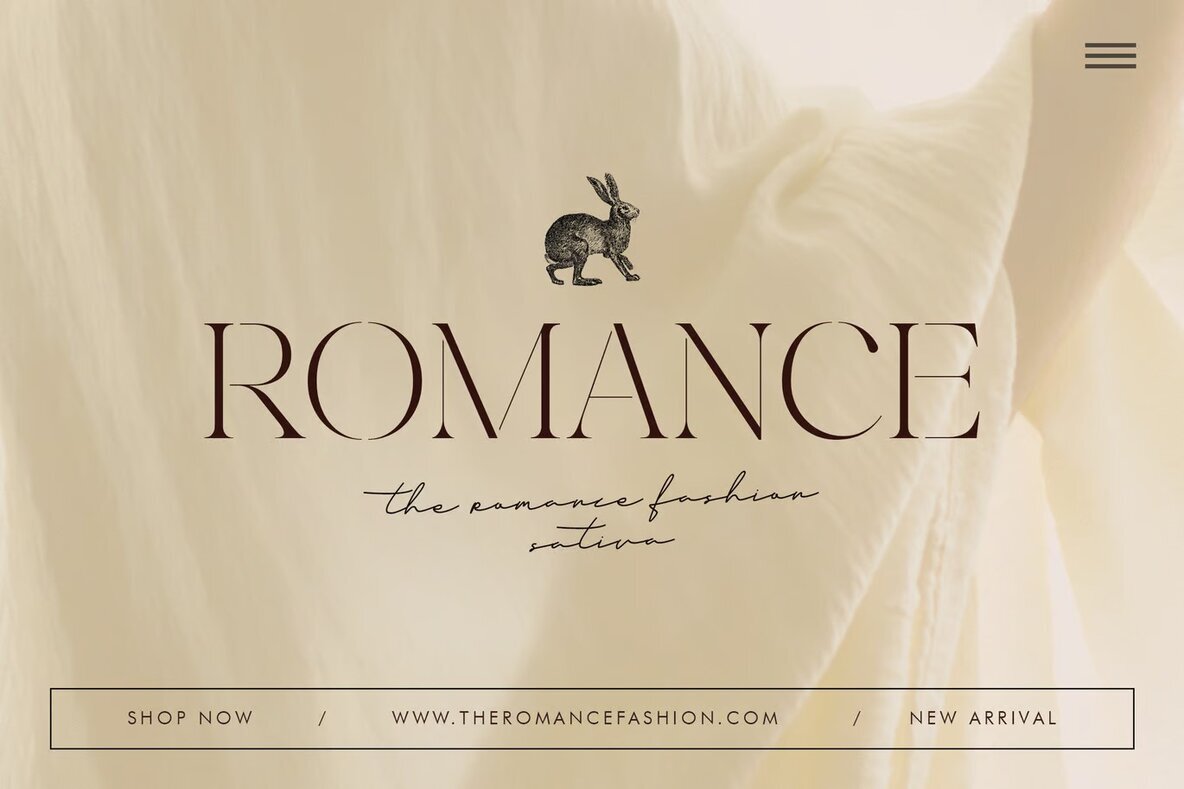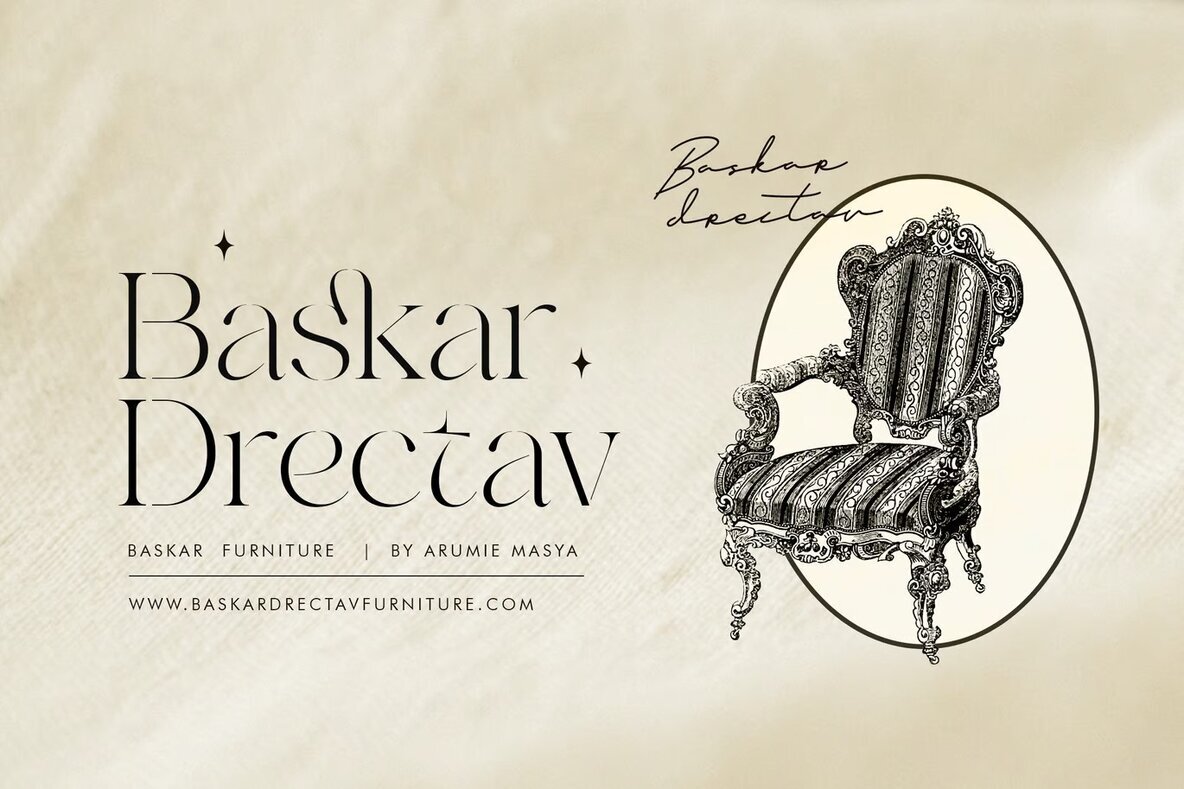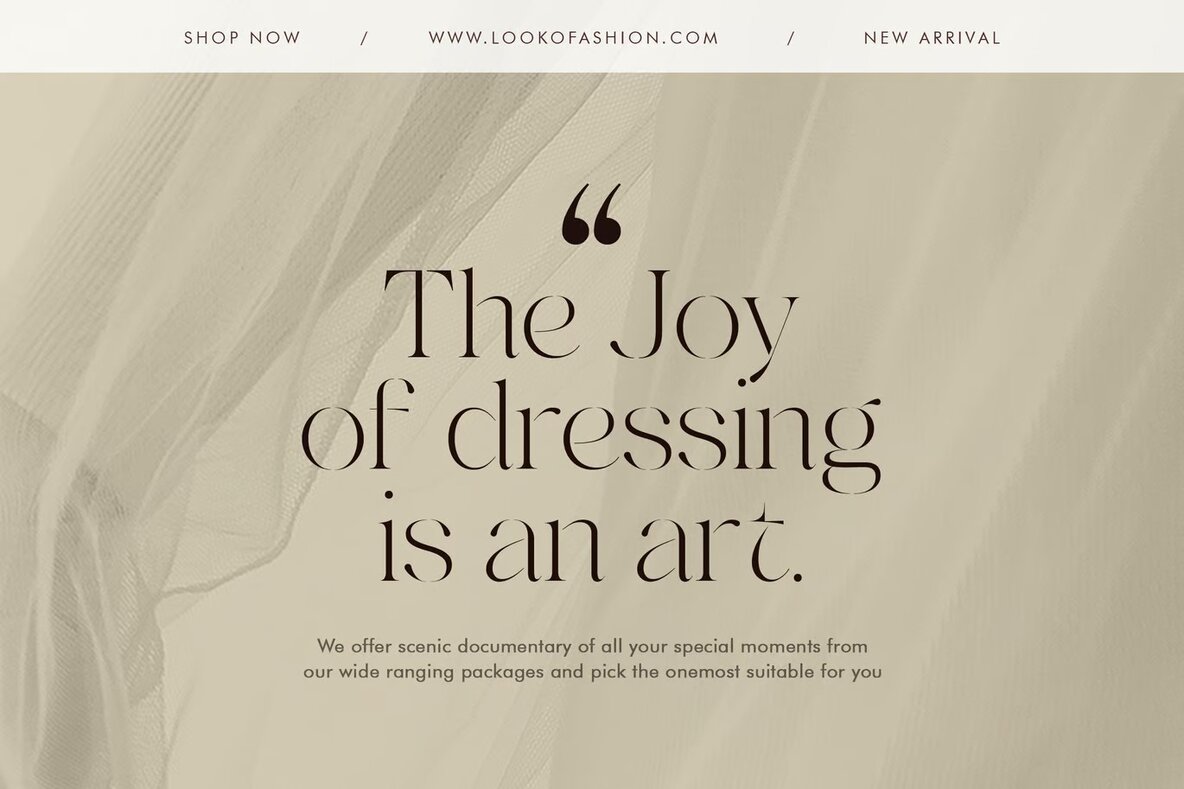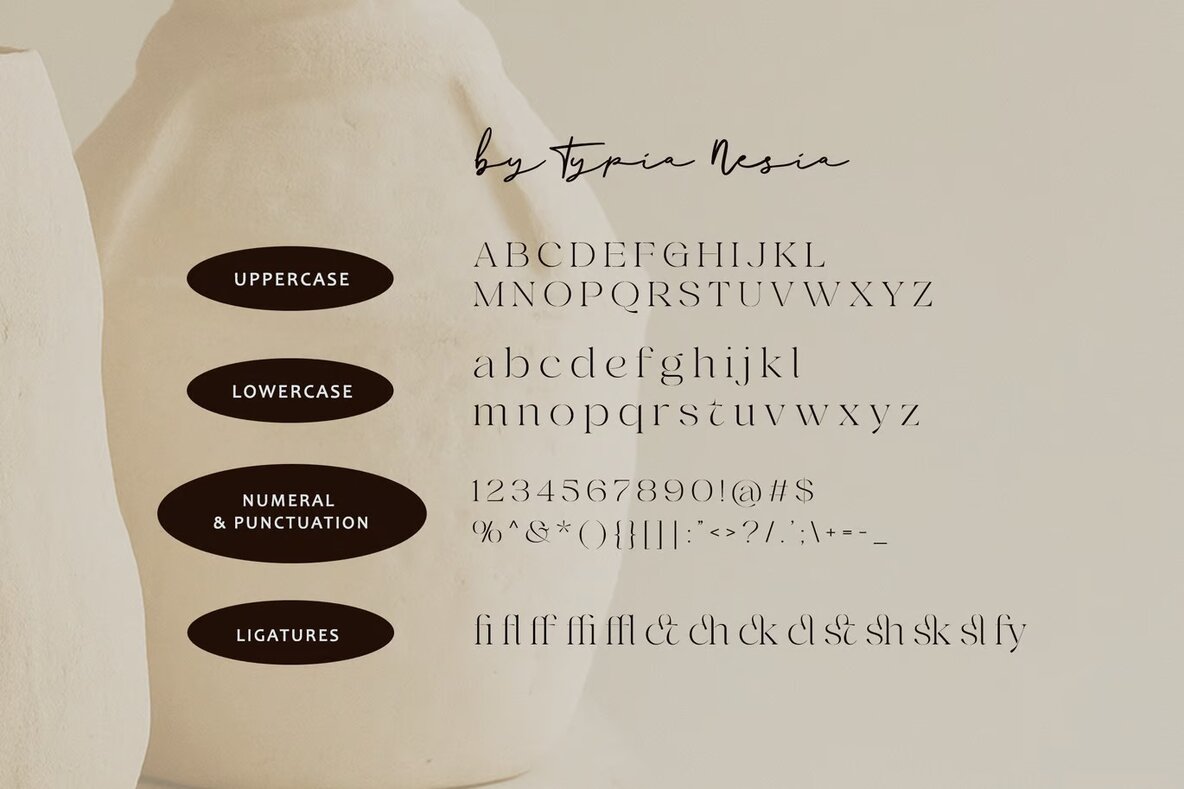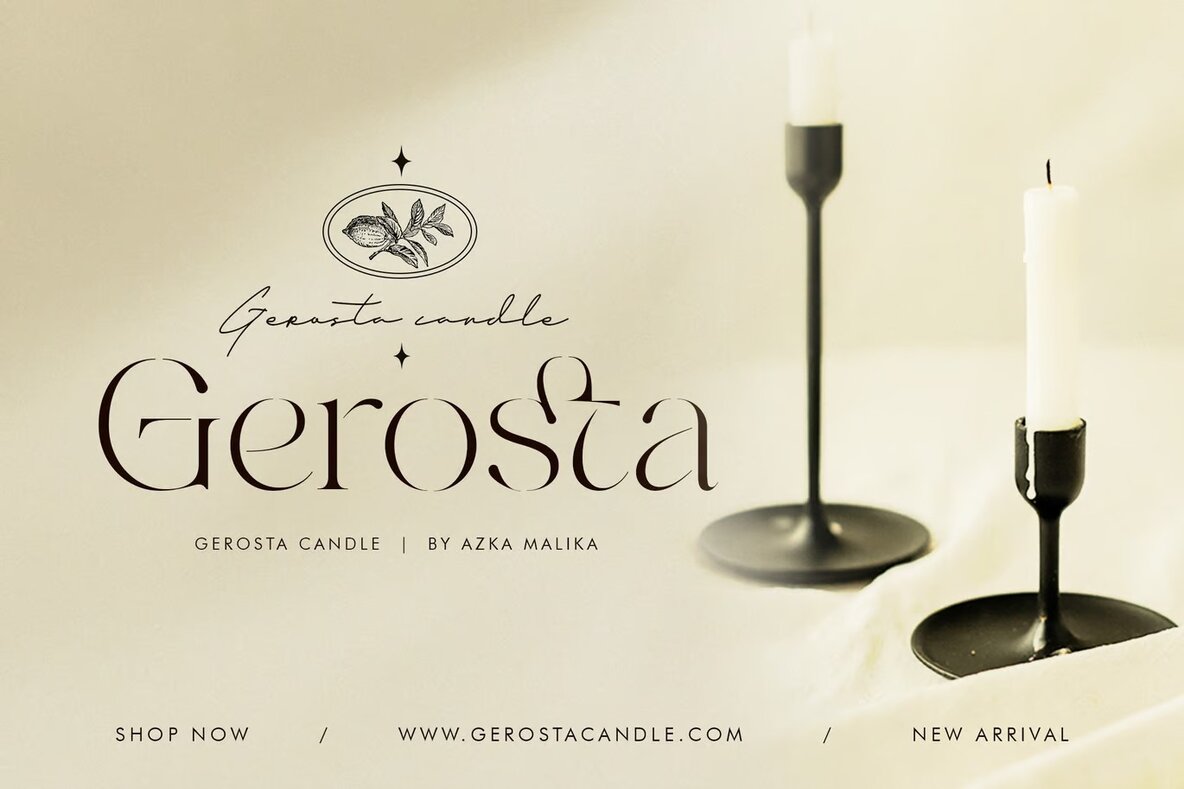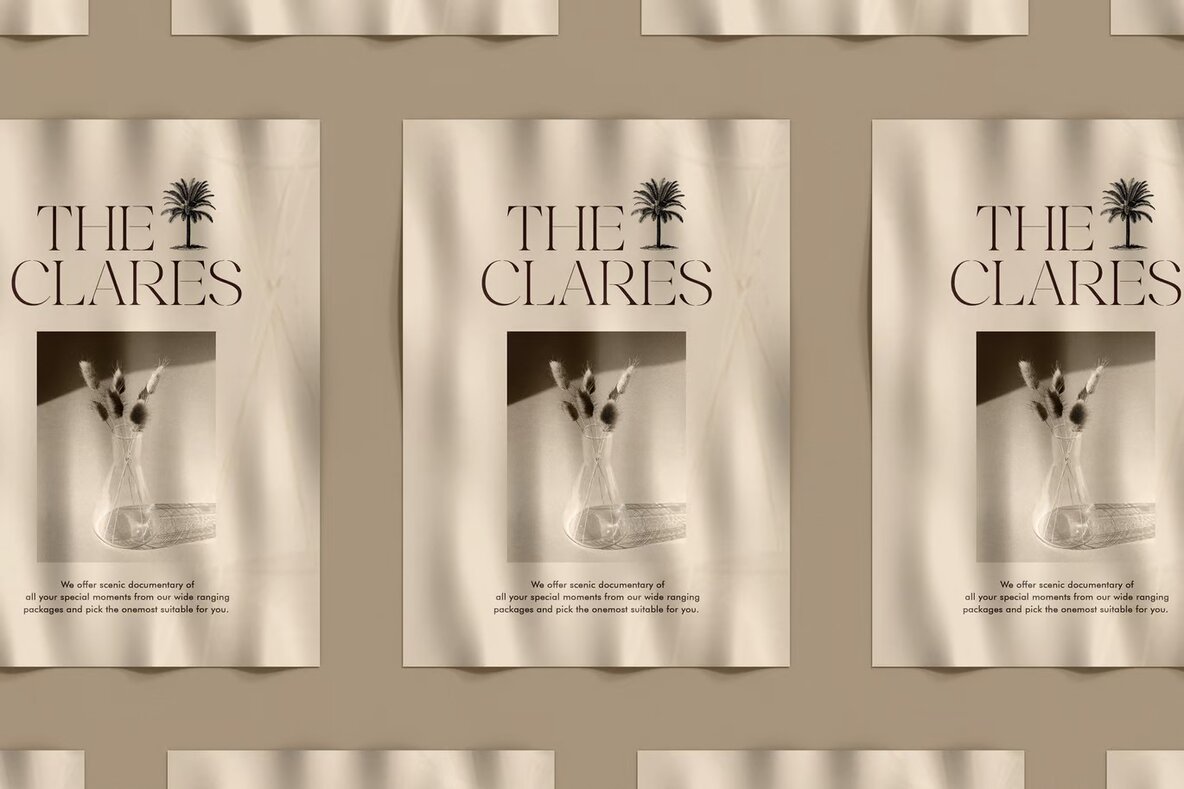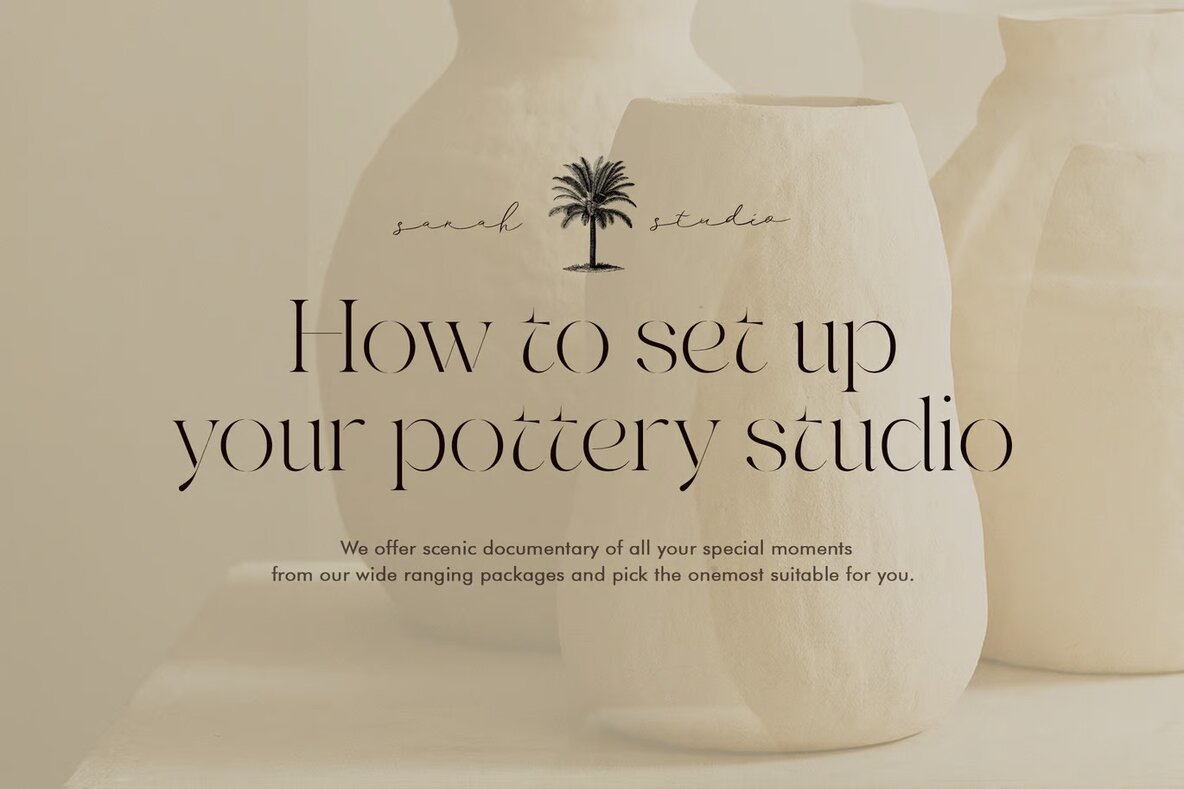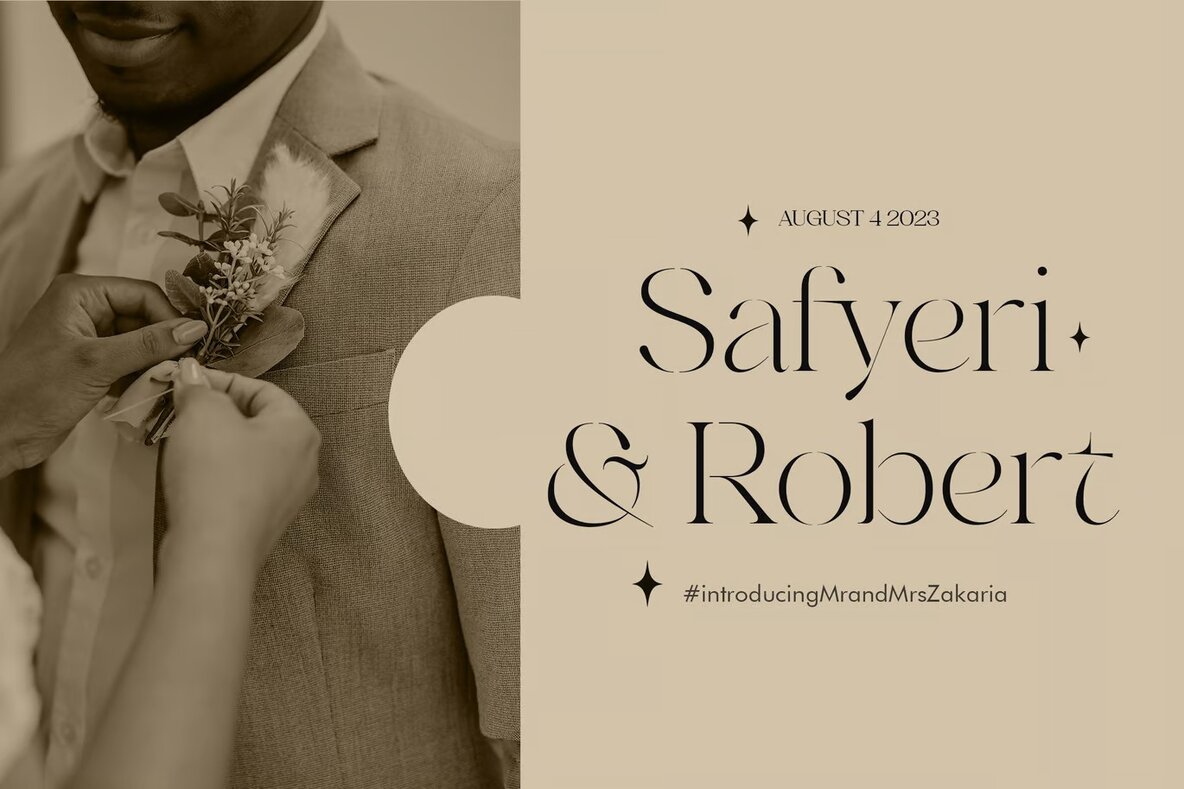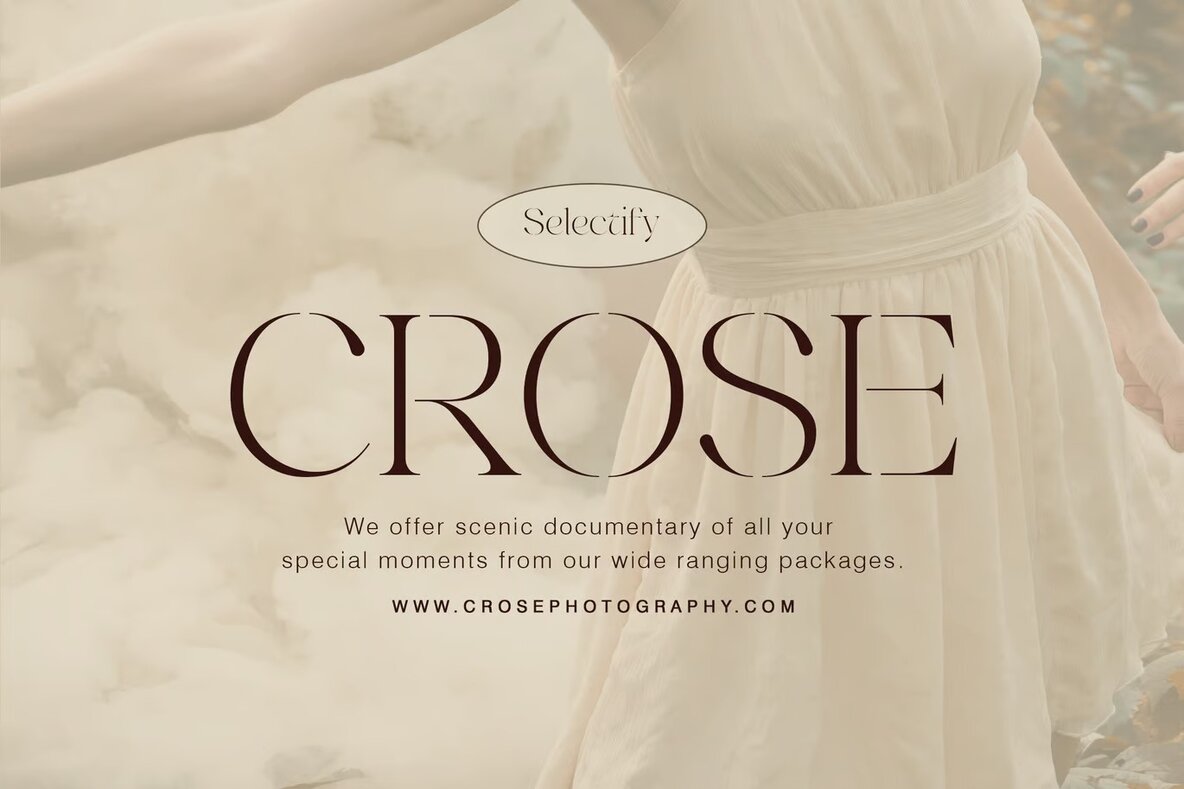
Selectify Font
Selectify Regular
Introducing Selectify, a stencil serif font that exudes elegance, luxury, and beauty. With its feminine touch, this sophisticated typeface is ideal for branding, packaging, logos, invitations, and a multitude of design projects. Selectify's unique ligature feature elevates your designs, adding an extra layer of refinement and uniqueness.
Perfect for capturing a touch of class, Selectify is designed to cater to various projects that demand a sophisticated aesthetic. Its elegant structure and luxurious feel make it a top choice for designers aiming to achieve a glamorous and feminine look. Make your designs stand out with the timeless beauty of Selectify.